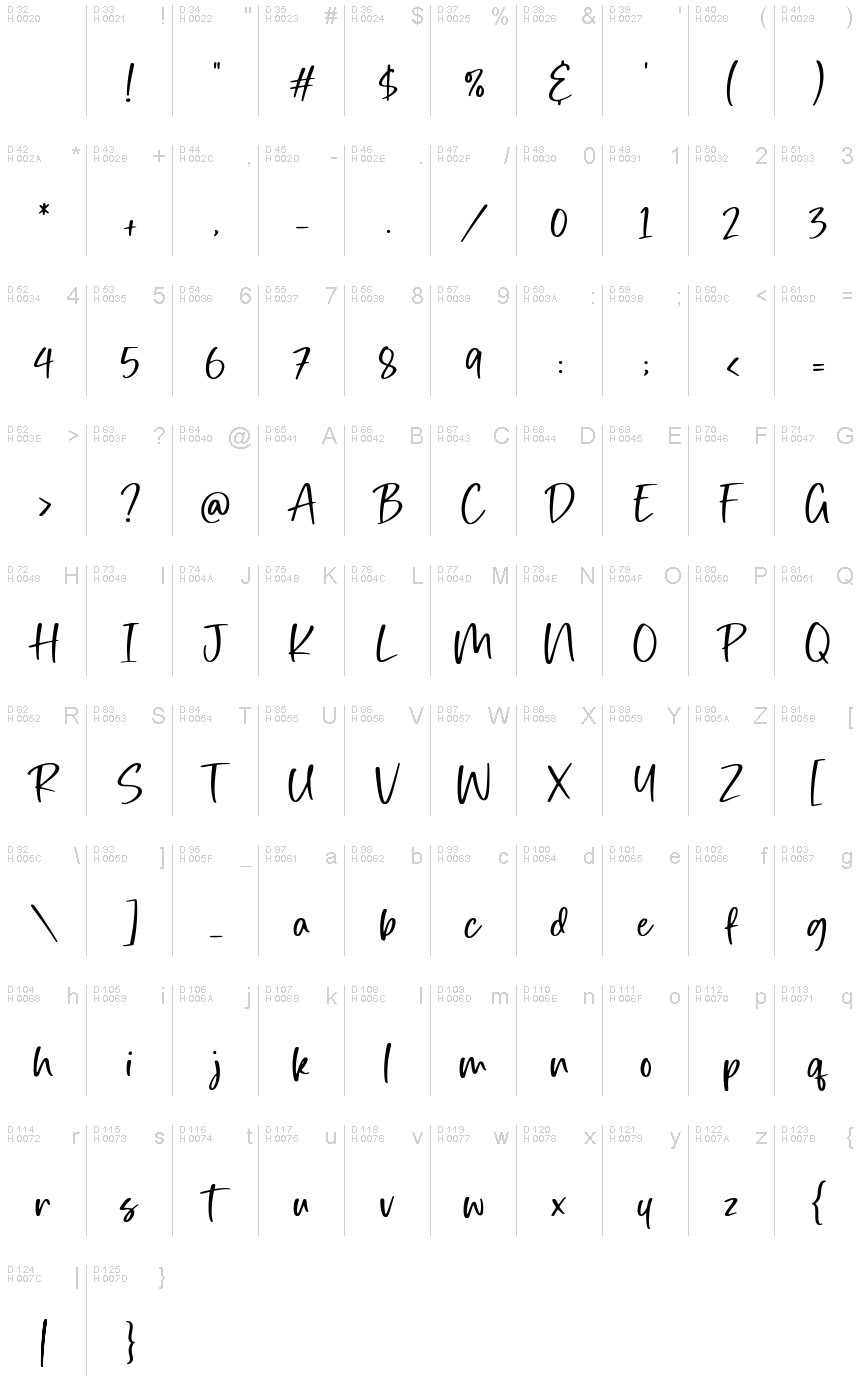
Rightwood
Rightwood, crafted by Timur Type, exudes the charm of a personal touch with its handwritten style. The fluidity of its strokes and the playful variability in its letterforms suggest a casual elegance. Each character in Rightwood appears to dance with a gentle rhythm, giving the font an approachable yet distinctive allure that is both modern and timeless.
This font's aesthetic lends itself beautifully to design projects that require an intimate, bespoke feel—perfect for invitations, branding, and editorial work where personality and warmth are paramount. Rightwood's handcrafted quality ensures it stands out in creative applications where a human touch transforms the ordinary into something memorable.